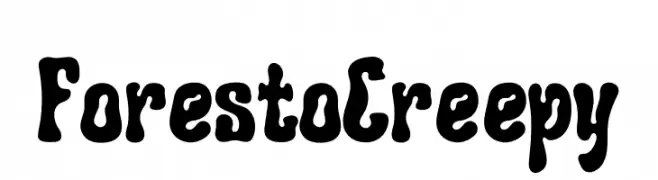
( Fonts by Jadatype )
A playful, spooky font with decorative Halloween-themed elements.
( Fonts by Qr Design )
A playful, spooky font with a hand-drawn, irregular style.
( Fonts by creativetacos )
A playful, ghost-themed font perfect for Halloween designs.
( Fonts by Ardyana Types )
A playful, hand-drawn font with a quirky, spooky vibe.
( Fonts by Yoga Letter )
A bold, dripping font ideal for horror and Halloween themes.
( Fonts by Wasabib Studio )
A spooky, jagged font with a playful, hand-drawn style.
( Fonts by Hawtpixel )
A bold, Halloween-themed decorative font with playful, spooky elements.
( Fonts by Storytype Studio )
A bold, playful font with a spooky, hand-drawn appearance.
( Fonts by Goodrichees )
A whimsical, eerie font with jagged edges and playful curls, perfect for Halloween themes.
( Fonts by Tokokoo Studio )
A bold, horror-themed font with jagged, dripping characters.